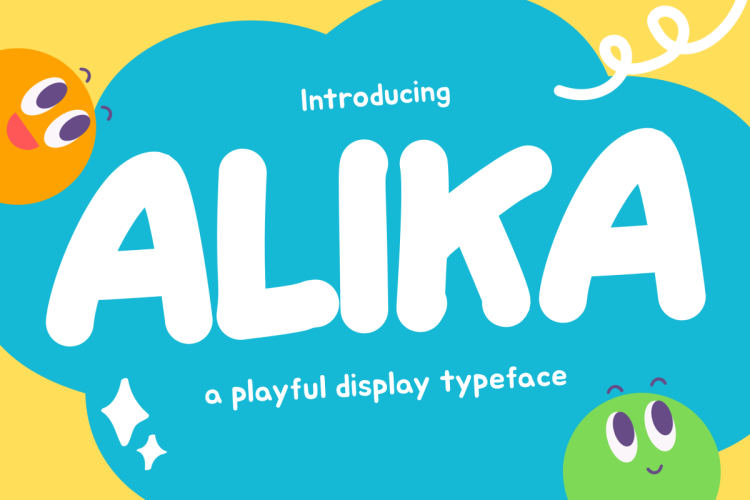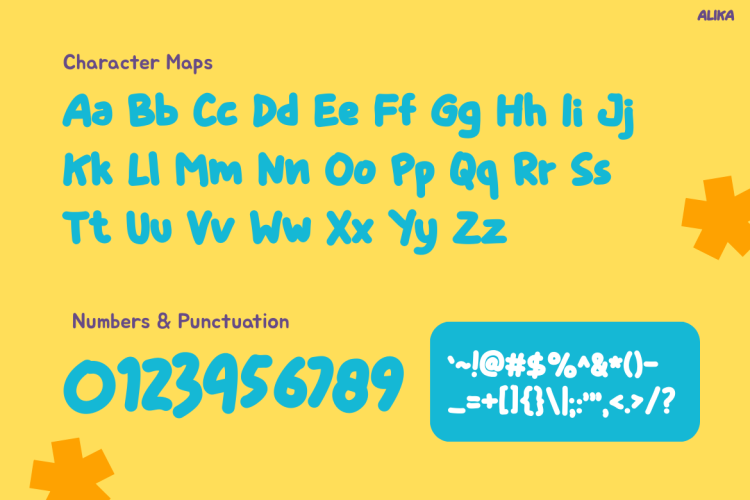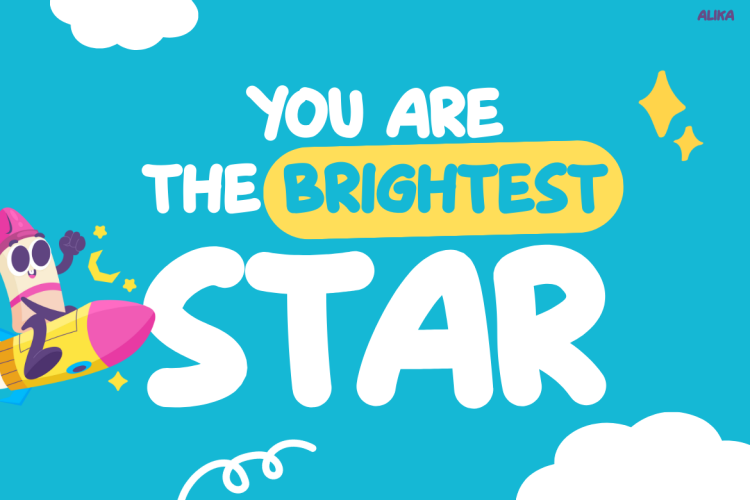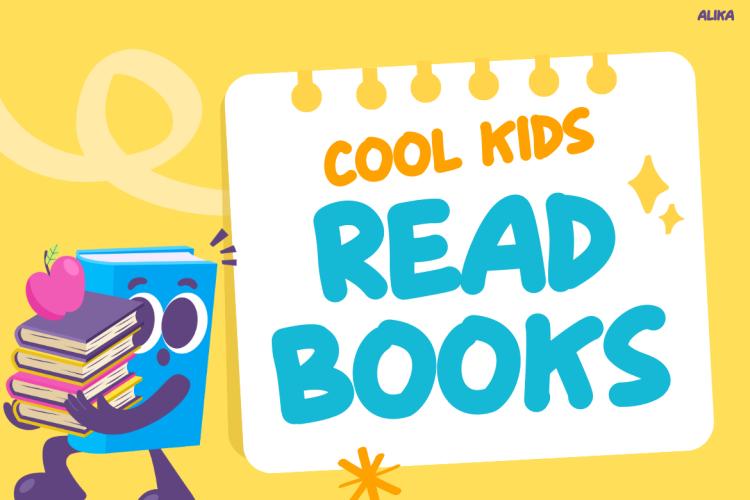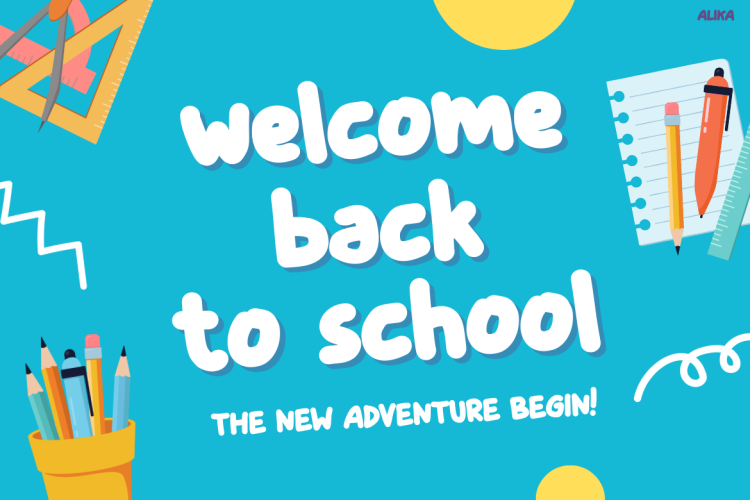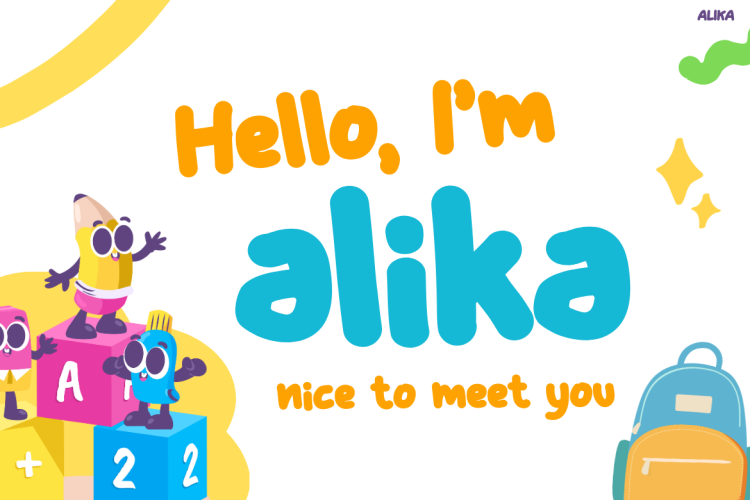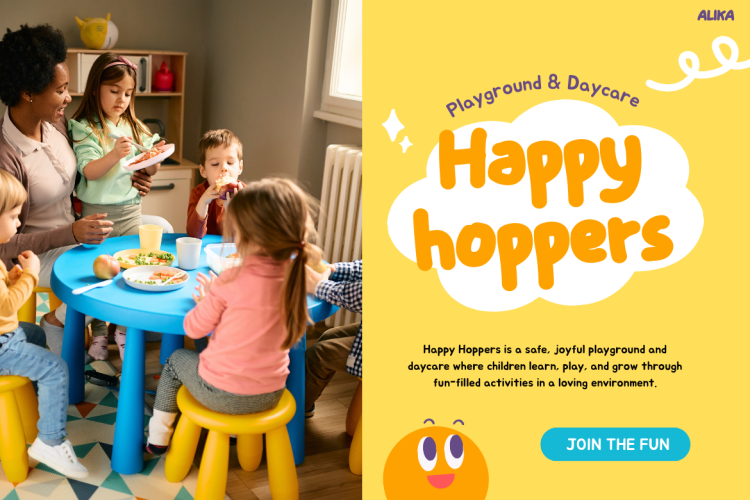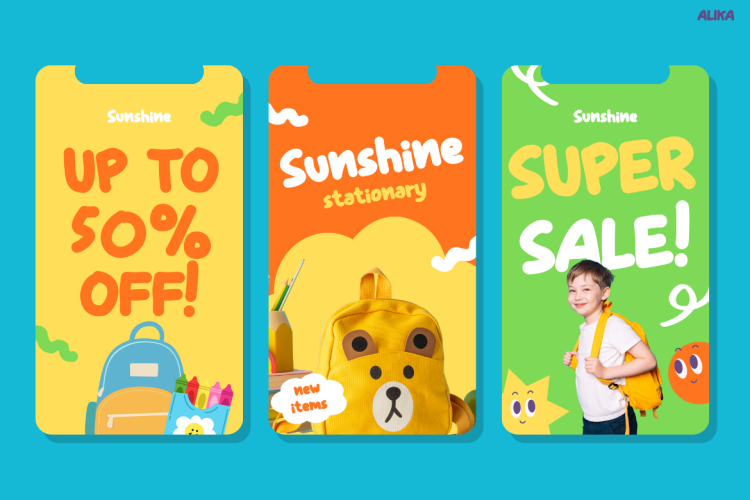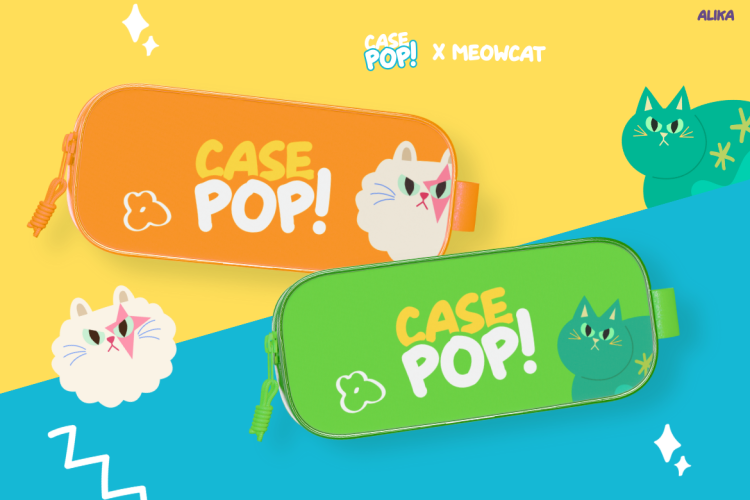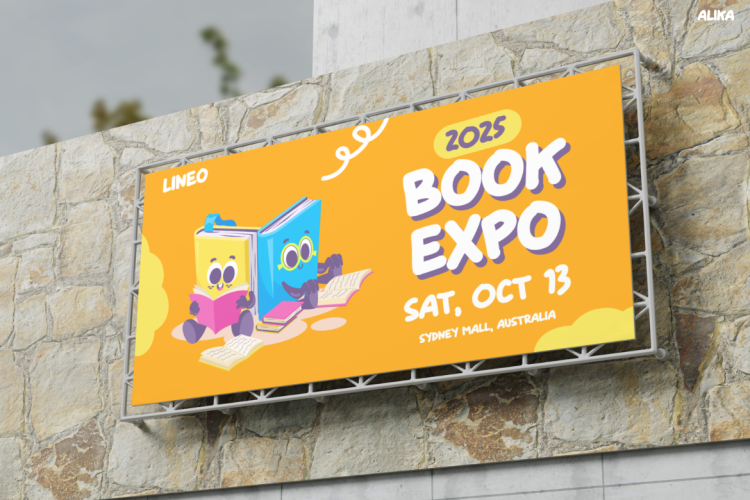
Kids Font Alika โ Fun Back to School Font for Kids Designs
Kids Font Alika is a joyful and playful display typeface designed to bring happiness into creative designs. First of all, Kids Font Alika captures attention with its rounded shapes and smooth curves. Moreover, each letter feels friendly and energetic. As a result, the font creates a warm emotional connection, especially for children and families. In addition, the bubbly style makes every word feel lively. Most importantly, Alika balances fun aesthetics with strong readability. Therefore, text remains clear and easy to understand. At the same time, the font looks decorative and expressive, making it visually appealing.
Alika is also built with usability in mind. For example, it includes uppercase and lowercase letters, numbers, and basic punctuation. Because of this, designers can create consistent layouts easily. Furthermore, the bold structure keeps the letters readable at different sizes. Consequently, Kids Font Alika works well for both digital and print use. In short, this font is flexible, practical, and cheerful.
Alika delivers a bright and imaginative typographic style for creative storytelling. To begin with, the rounded letterforms create a soft and welcoming look. Meanwhile, the slightly hand-drawn feel adds warmth and charm. As a result, designs feel natural and friendly. In addition, the balanced proportions keep layouts neat and organized. Alika is ideal for childrenโs books, school materials, posters, packaging, and social media graphics. Because of its friendly style, messages feel positive and engaging, especially for child-focused themes.
Alika is the perfect choice for designs that need warmth and joy. Above all, it makes messages friendly and memorable. Finally, choose Kids Font Alika to make your designs stand out and attract buyers with confidence.